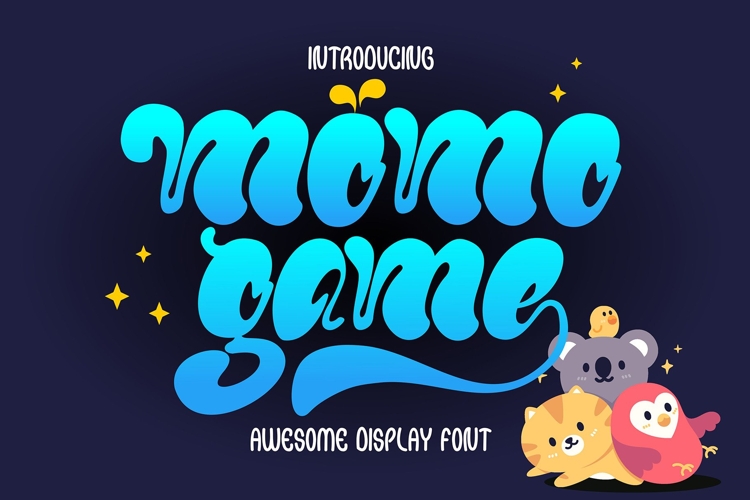
Momo Game - Bubble Display Font
Dive into a world of whimsy and playfulness with Momo Game – the bubble display font that adds a touch of fun and nostalgia to your designs. More than just a font, Momo Game is a versatile tool for crafting captivating and imaginative creations that transport viewers to a world of childhood wonder.
🎈 Bubble Fun: Momo Game bubbles with charm and whimsy, bringing a delightful sense of playfulness to every character. Each letter is encased in its own bubble, evoking the joy and innocence of childhood games and creating a unique visual impact.
🕹️ Nostalgic Nods: With Momo Game, nostalgia takes center stage. Its bubbly design harks back to the carefree days of retro gaming and arcade adventures, making it the perfect choice for projects that celebrate the beloved aesthetics of the past.
🔮 Versatile Creativity: From gaming logos to children's book illustrations, Momo Game offers endless possibilities for creative expression. Its bubbly demeanor adds a touch of whimsy to any project, ensuring that your designs stand out and capture the imagination of audiences young and old.
🌟 Childlike Wonder: Embrace the magic of childhood with Momo Game. Its playful and enchanting style resonates with audiences of all ages, evoking feelings of joy, nostalgia, and wonder. Whether you're designing for kids or the young at heart, Momo Game brings a sense of delight to every project.
💡 Endless Adventures: With Momo Game, the adventure never ends. Whether you're creating greeting cards, posters, or digital graphics, this font gives you the freedom to explore and create designs that spark joy and ignite the imagination.
🌈 Bubblegum Dreams: Inspired by the colorful world of bubblegum and candy, Momo Game brings a sugary-sweet aesthetic to your designs. Its bubbly letters dance across the page, infusing your projects with a sense of lighthearted fun and whimsical charm.
Let your creativity soar with Momo Game – where bubbles meet typography, and every design is a playful delight. It's time to add a splash of fun to your creations with this best-selling bubble display font leading the way.